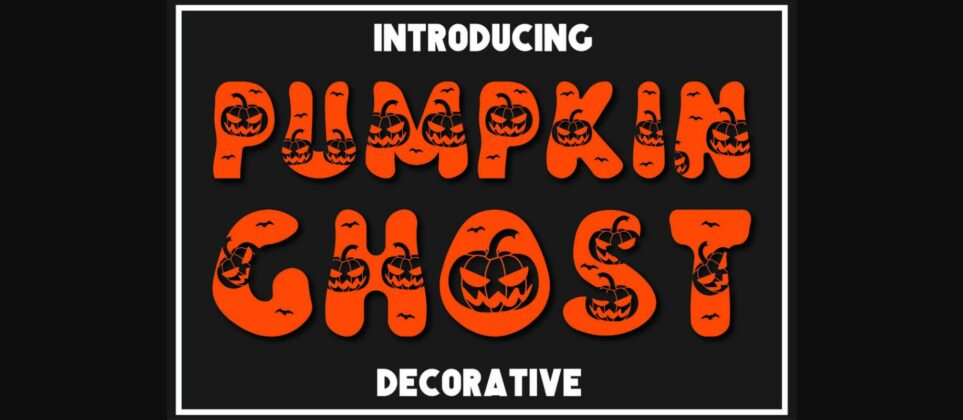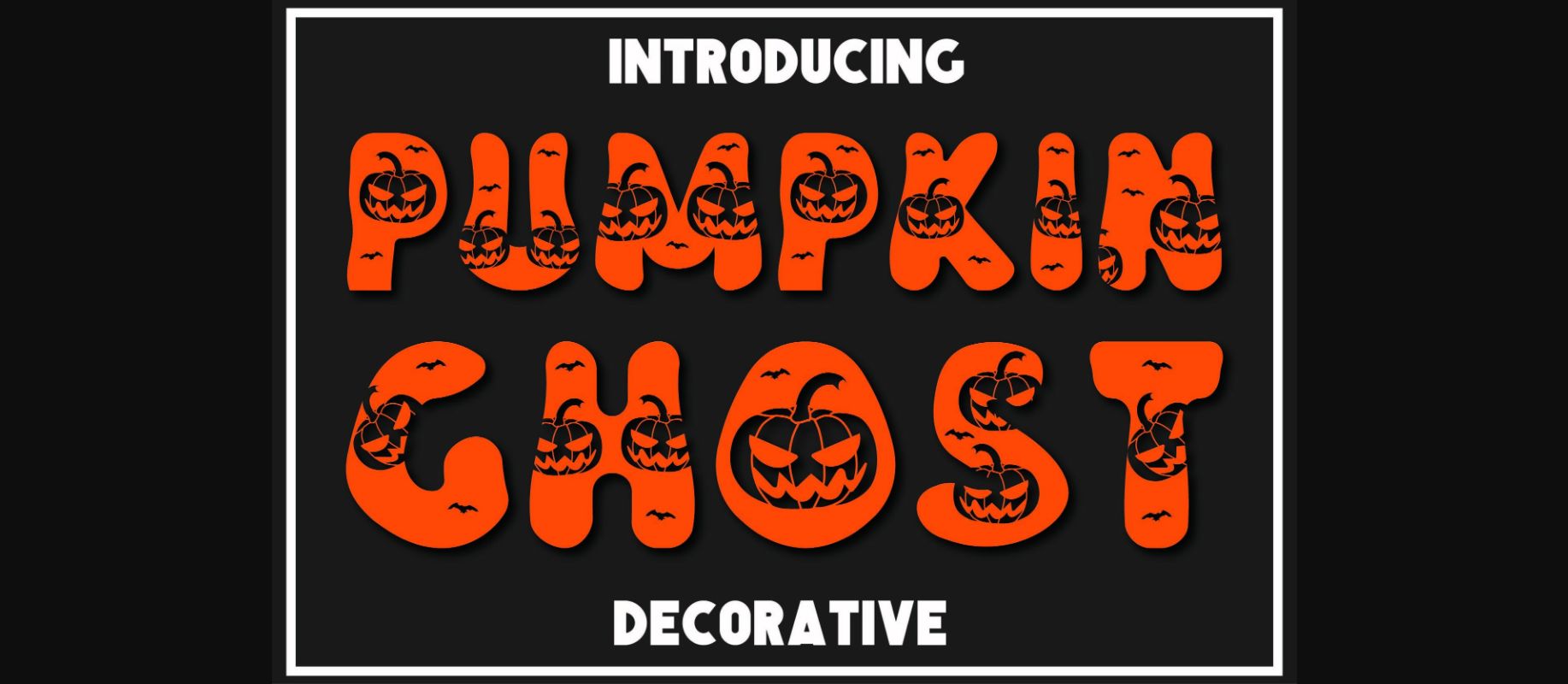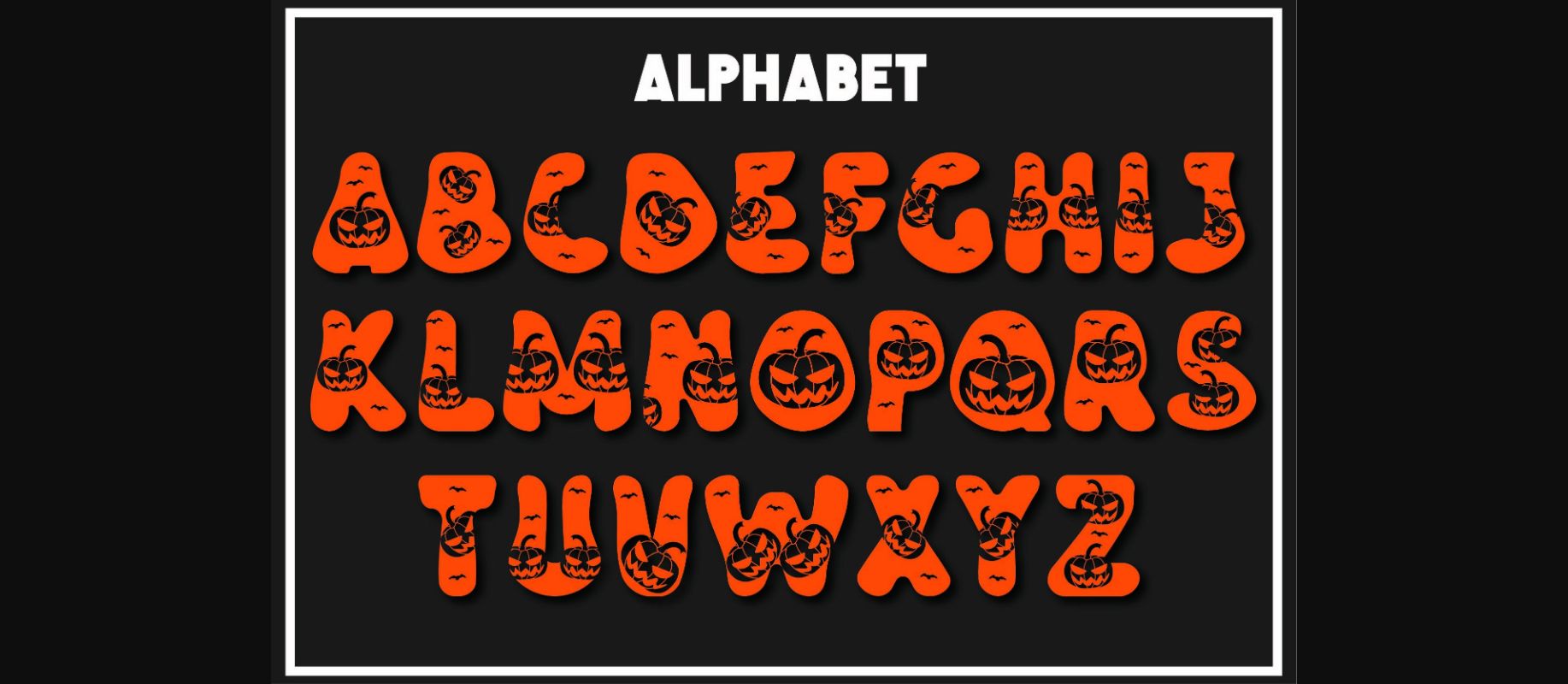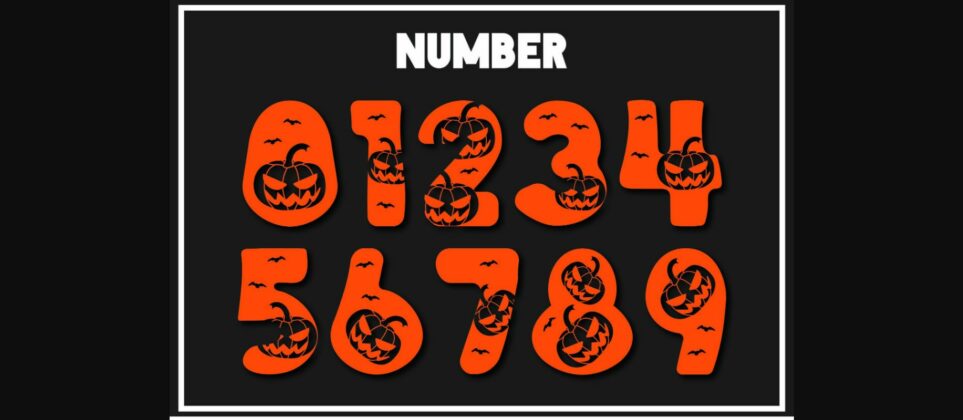
About Pumpkin Ghost Font
Pumpkin Ghost is distinguished by its incorporation of spooktacular graphics in both alphabetic and alphanumeric characters. This decorative typeface is great for printed fabrics, publications, billboards, packaging, and many other applications.